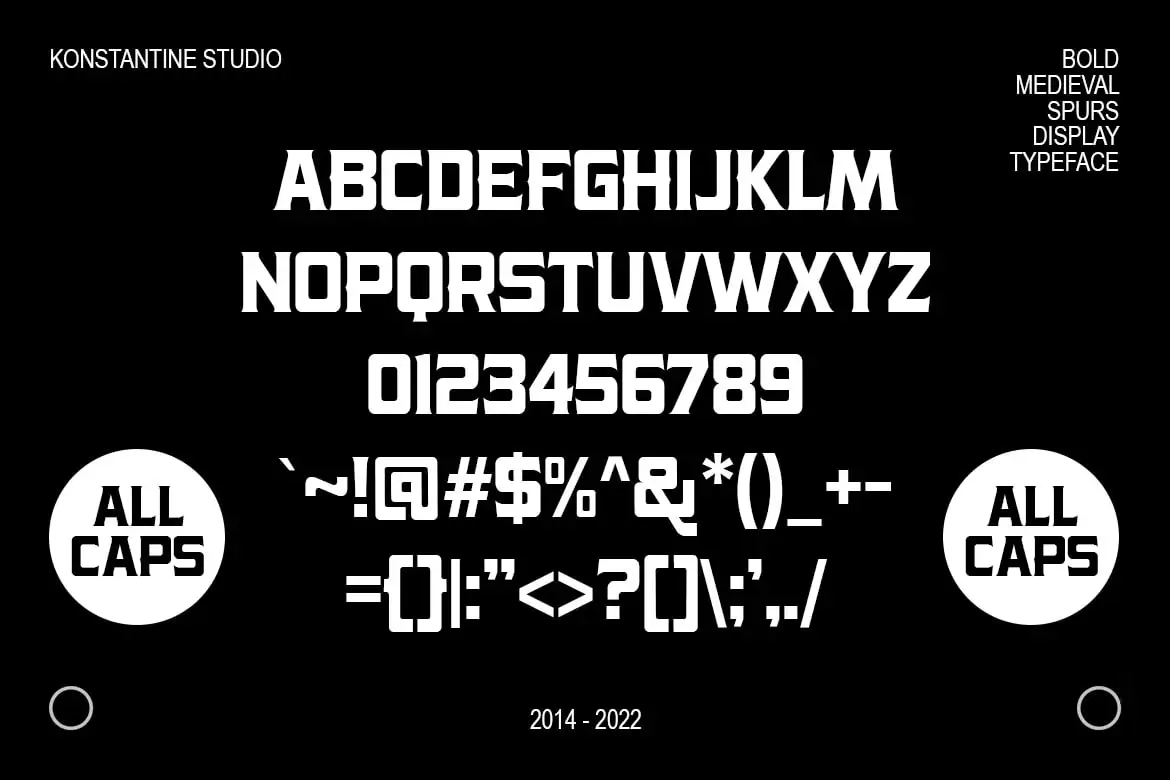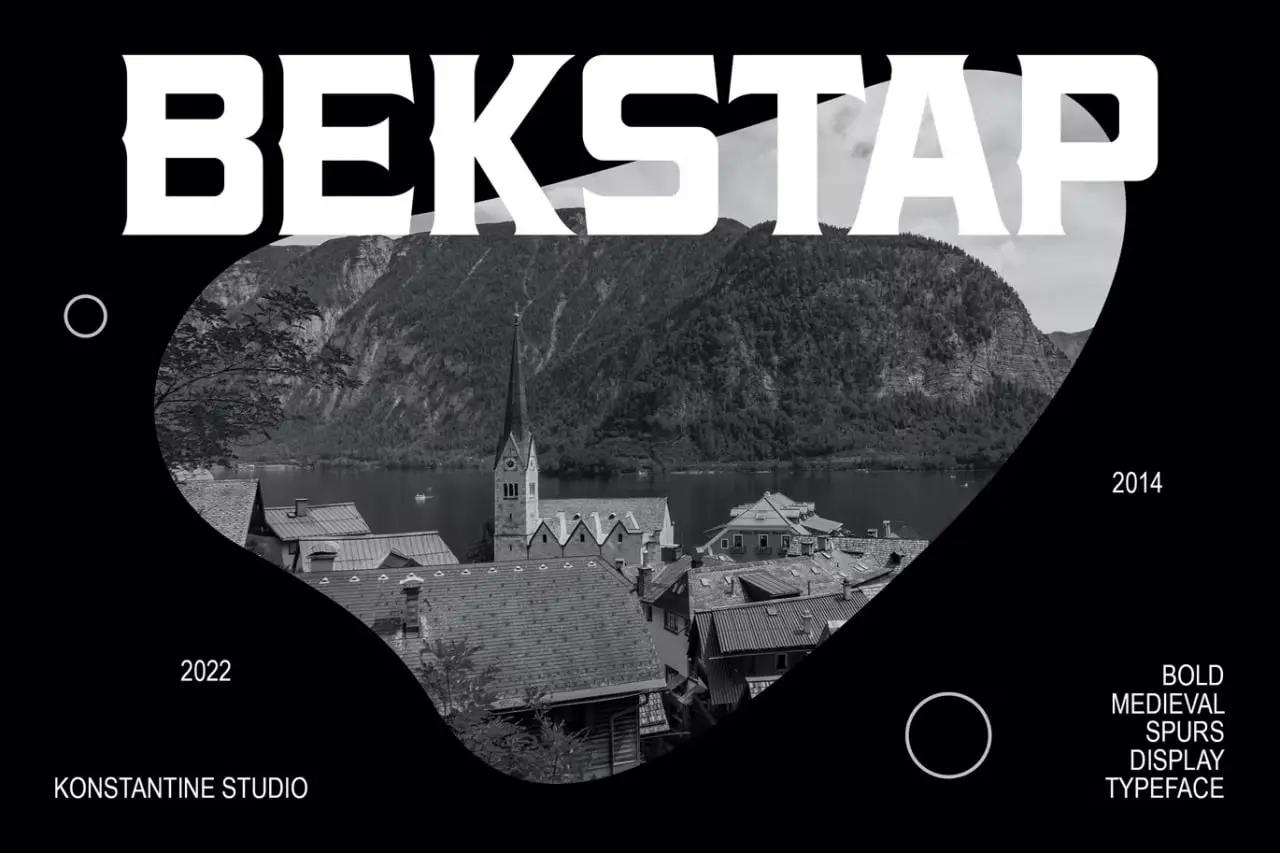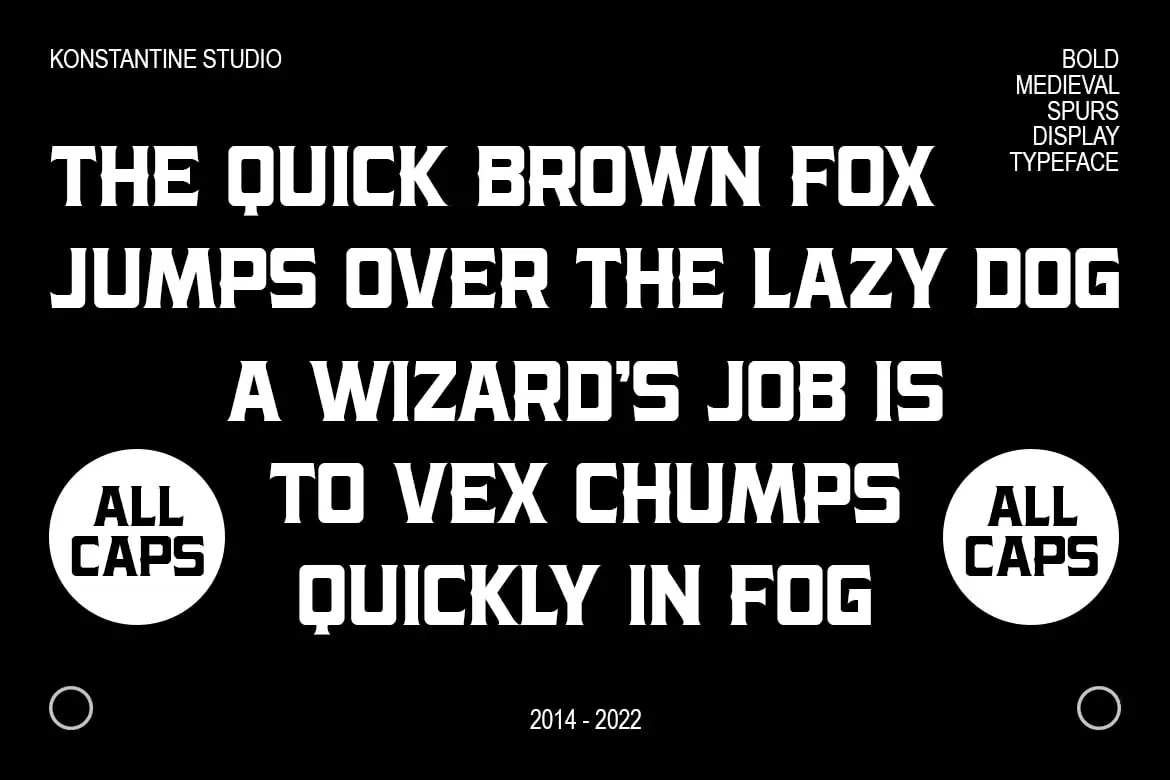
Bekstap Font (Personale Use)
The Bekstap Font is a beautifully crafted typeface designed for personal use, perfect for adding a touch of elegance to your projects. With its unique style and versatile weights, this font can elevate your branding, logos, and print materials.
• Ideal for personal branding and logo design
• Great for invitations, greeting cards, and other print materials
• Use in digital projects for a stylish and modern look